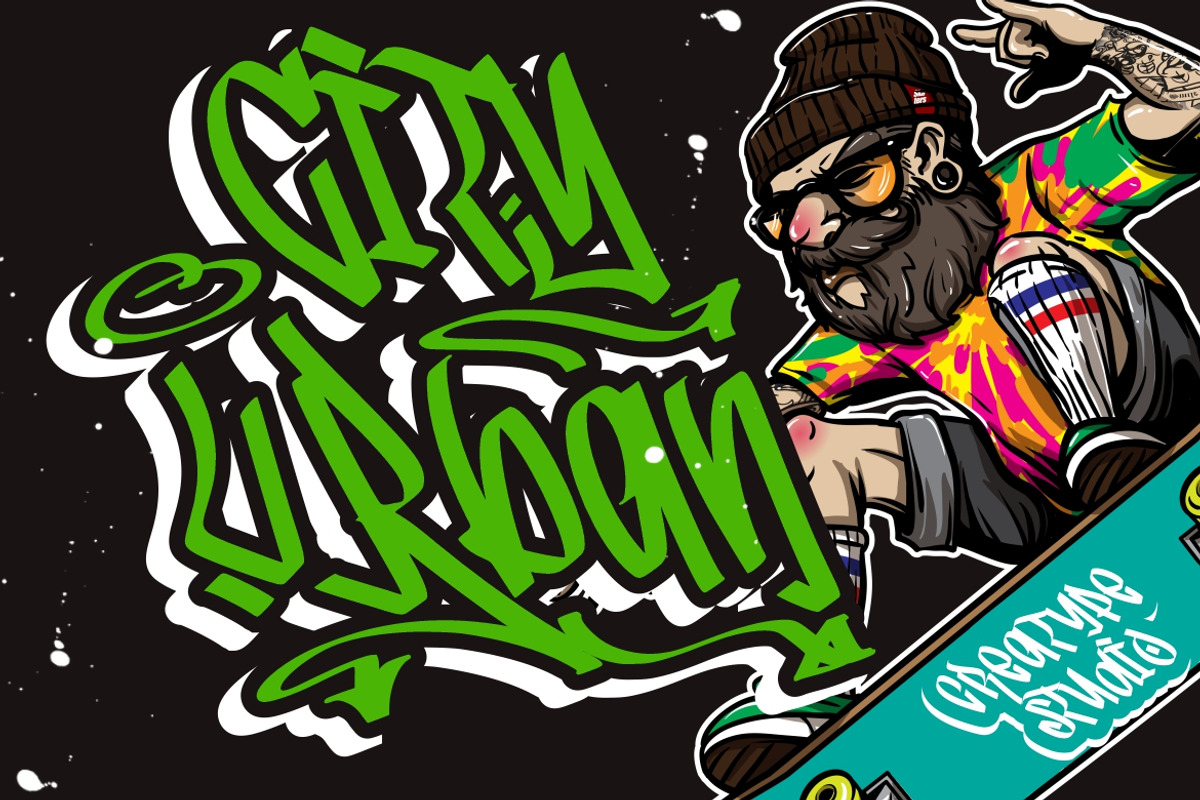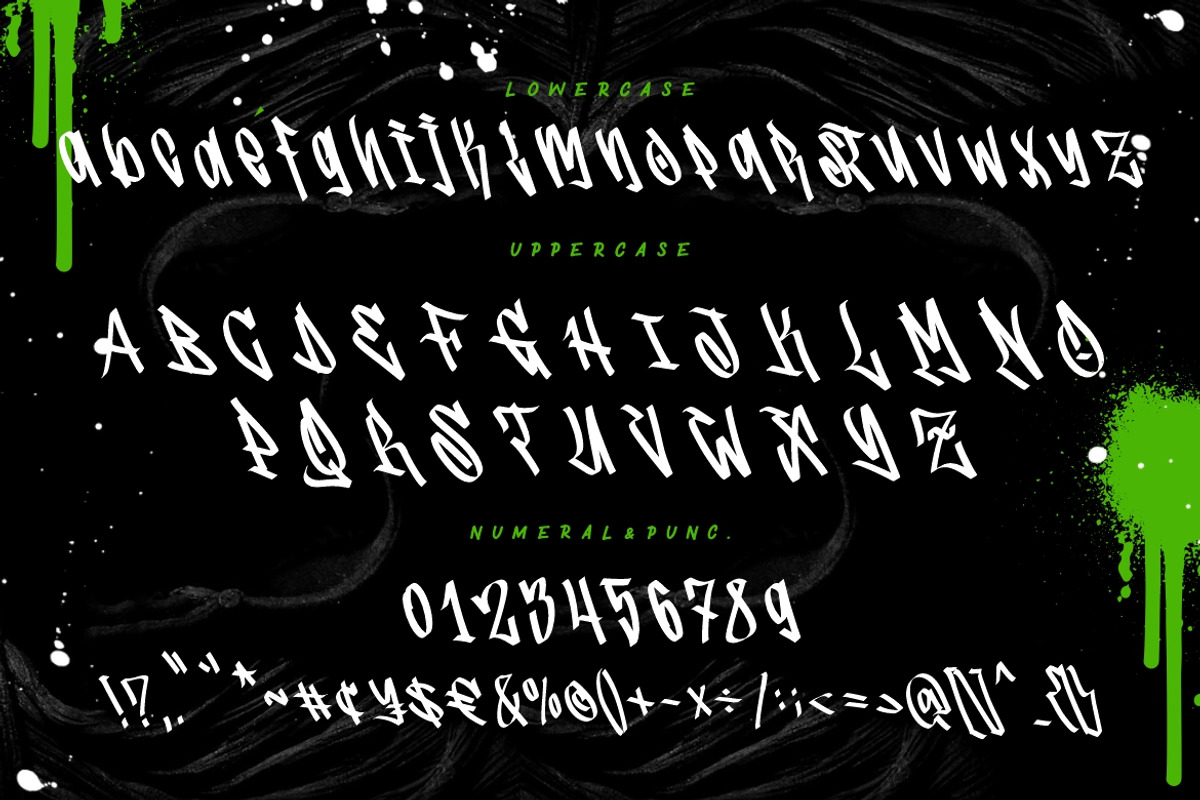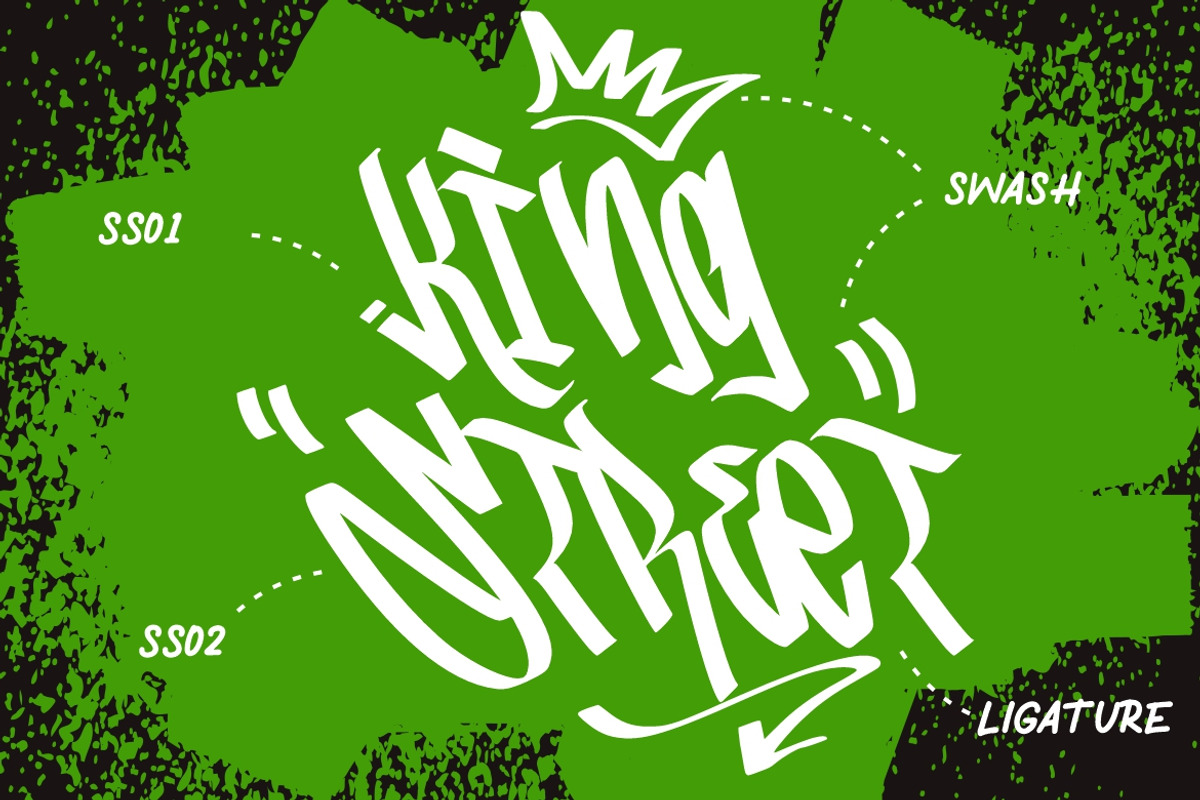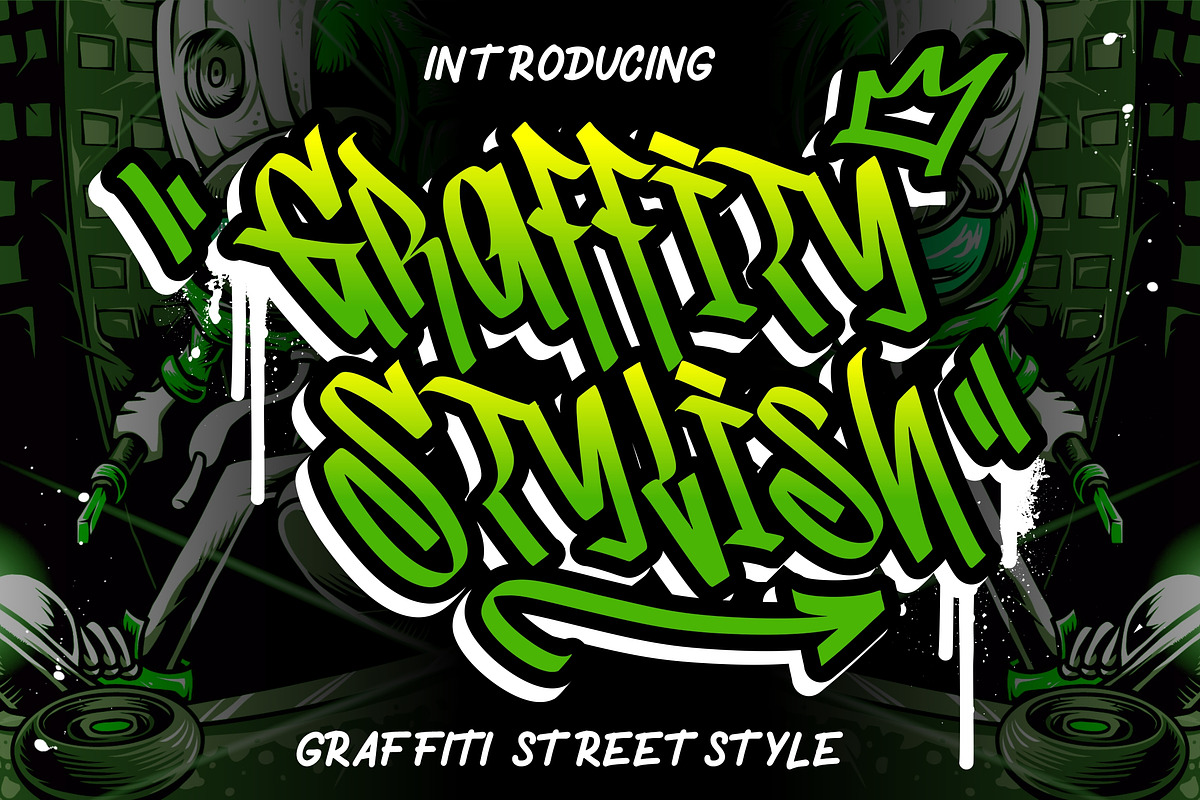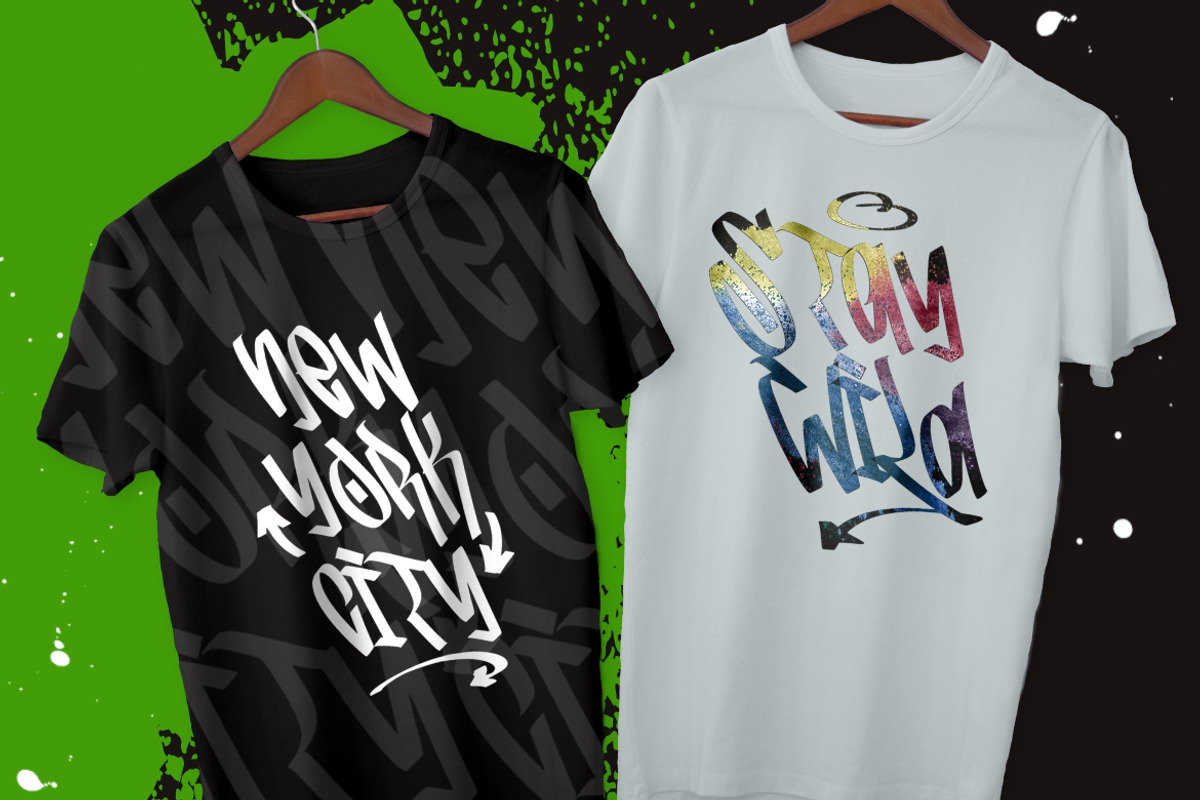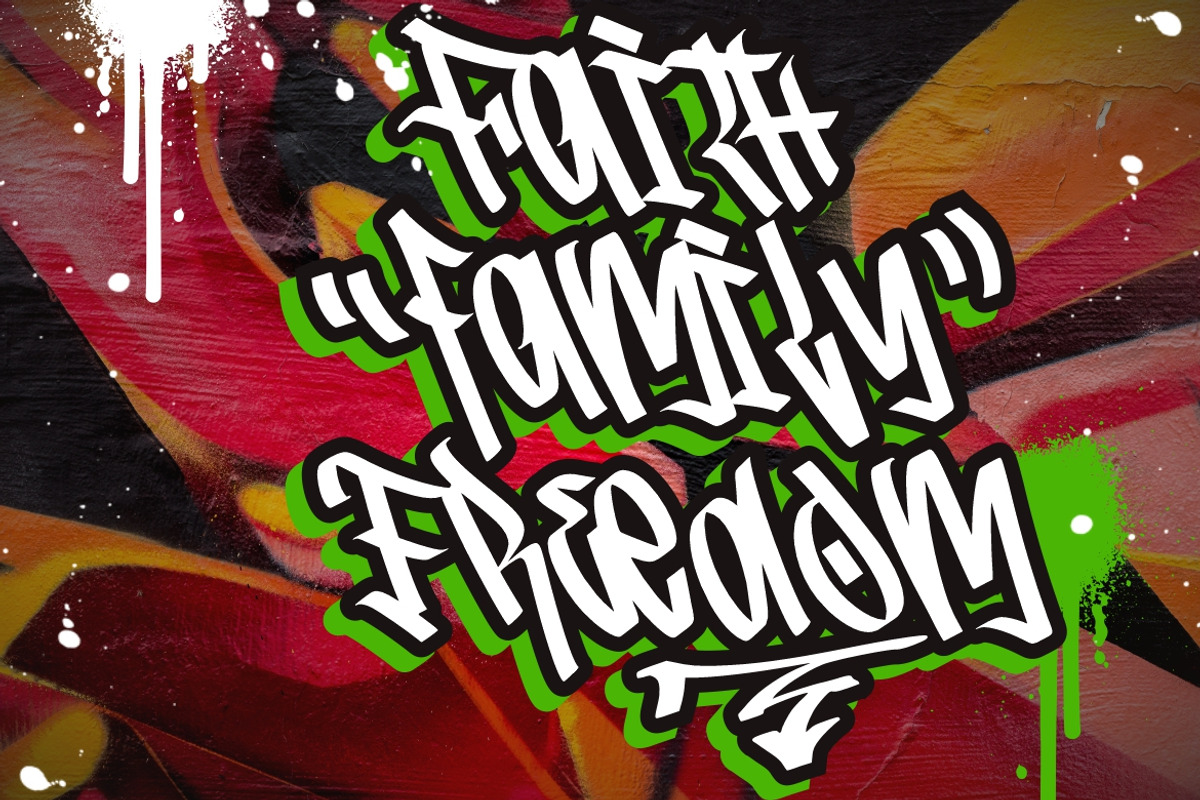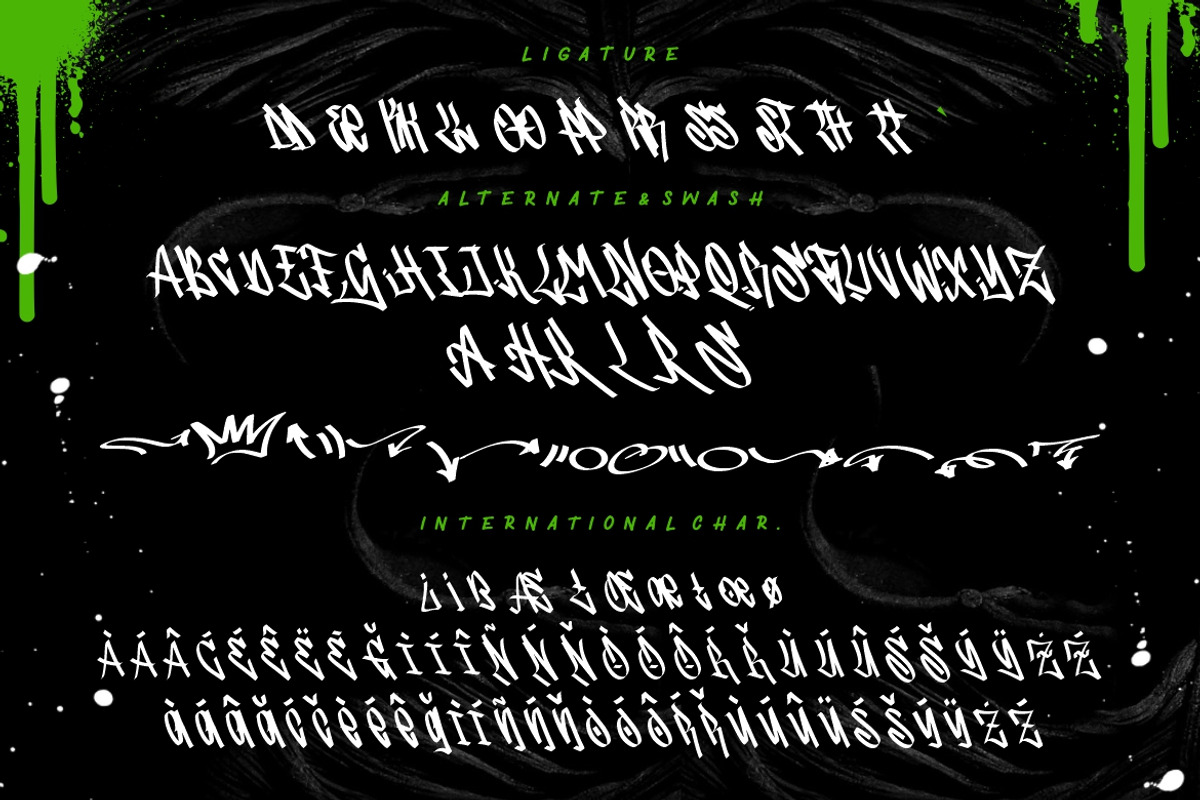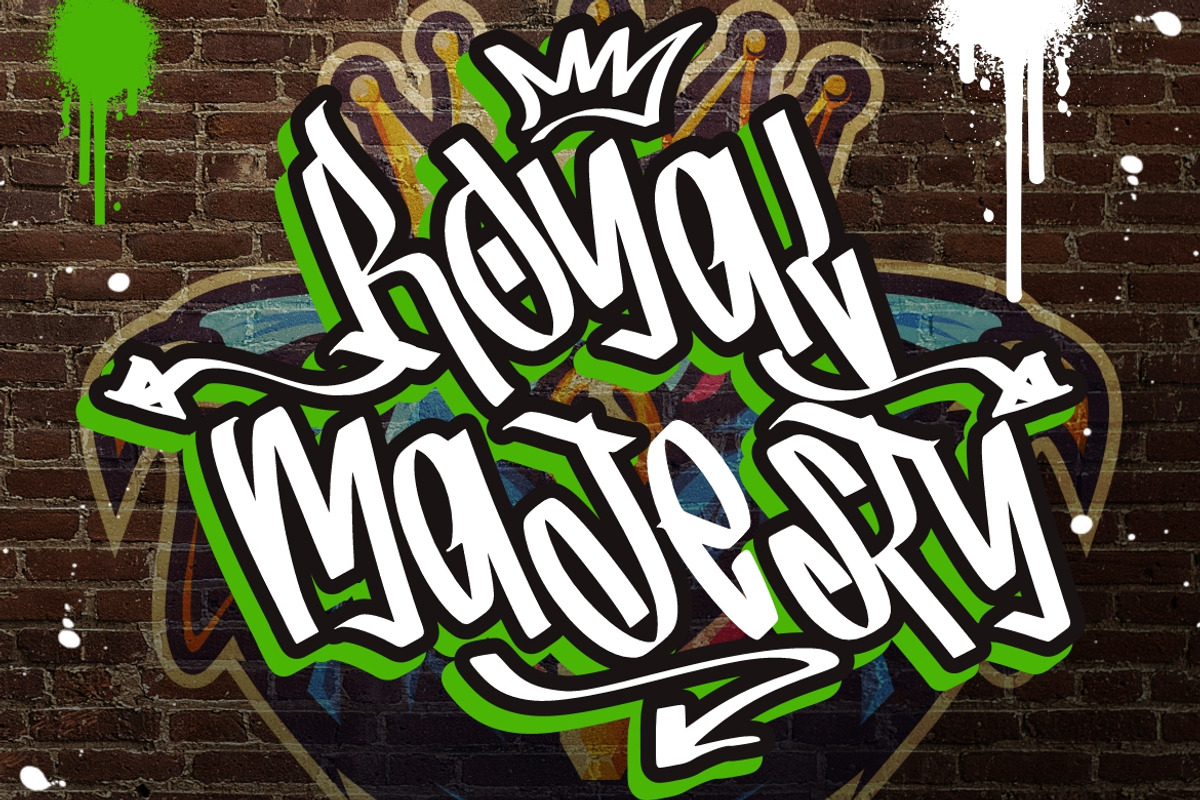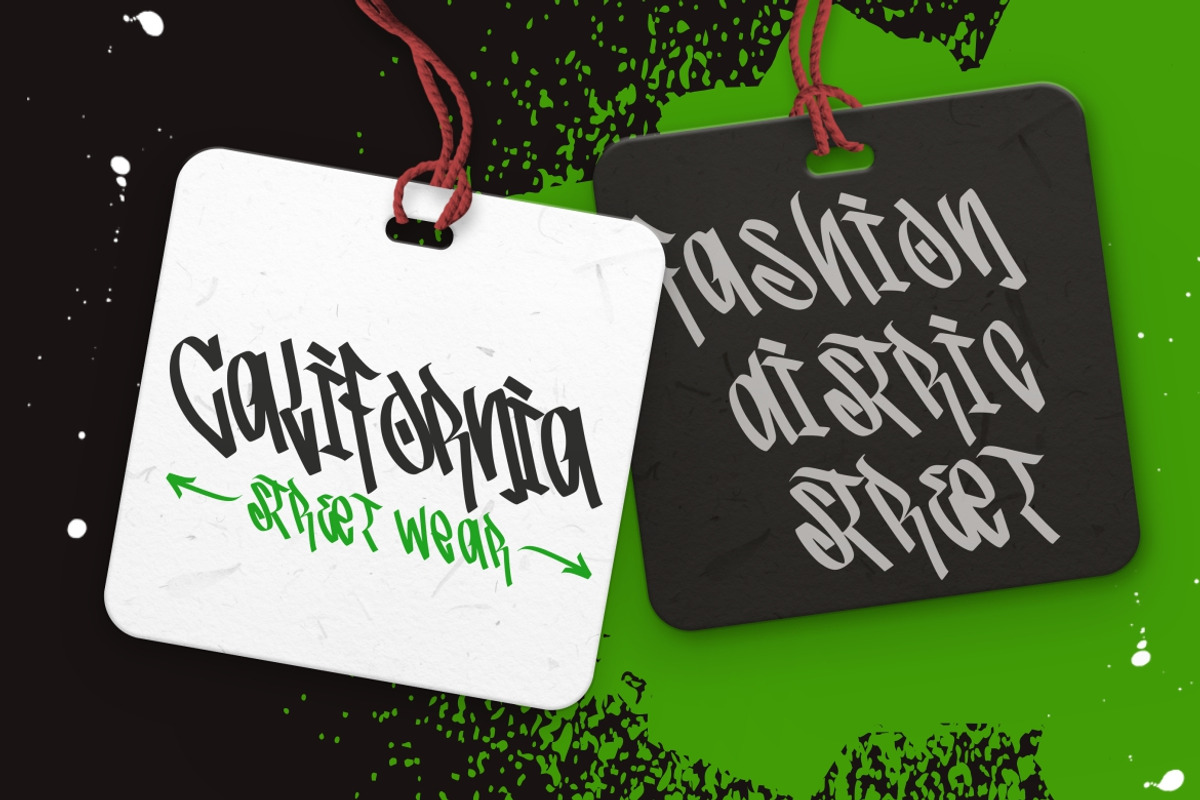
Graffity Stylish Graffiti Street
Graffity Stylish is graffiti street style font that looks marvelous and perfect for mural effect creation.
- Ligature & Alternate